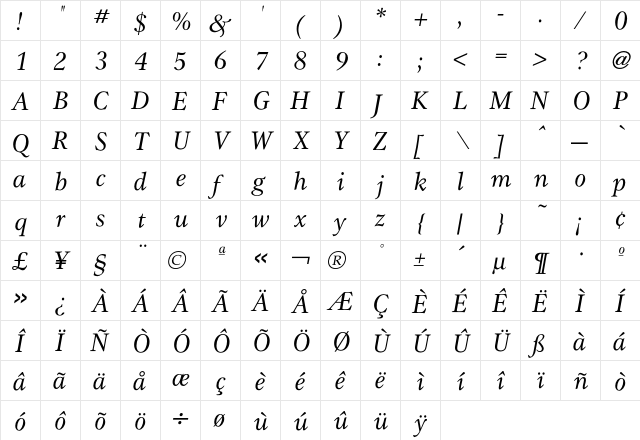
Gamma BookItalic
Design Context for Gamma Typeface
Gamma is a composed and adaptable typeface that performs quietly and consistently across a wide range of design contexts. The slanted form adds forward momentum and visual energy.
Pro Tip: Try Gamma for annotation and caption copy alongside an upright companion — the contrast in angle creates a dynamic but ordered typographic system.